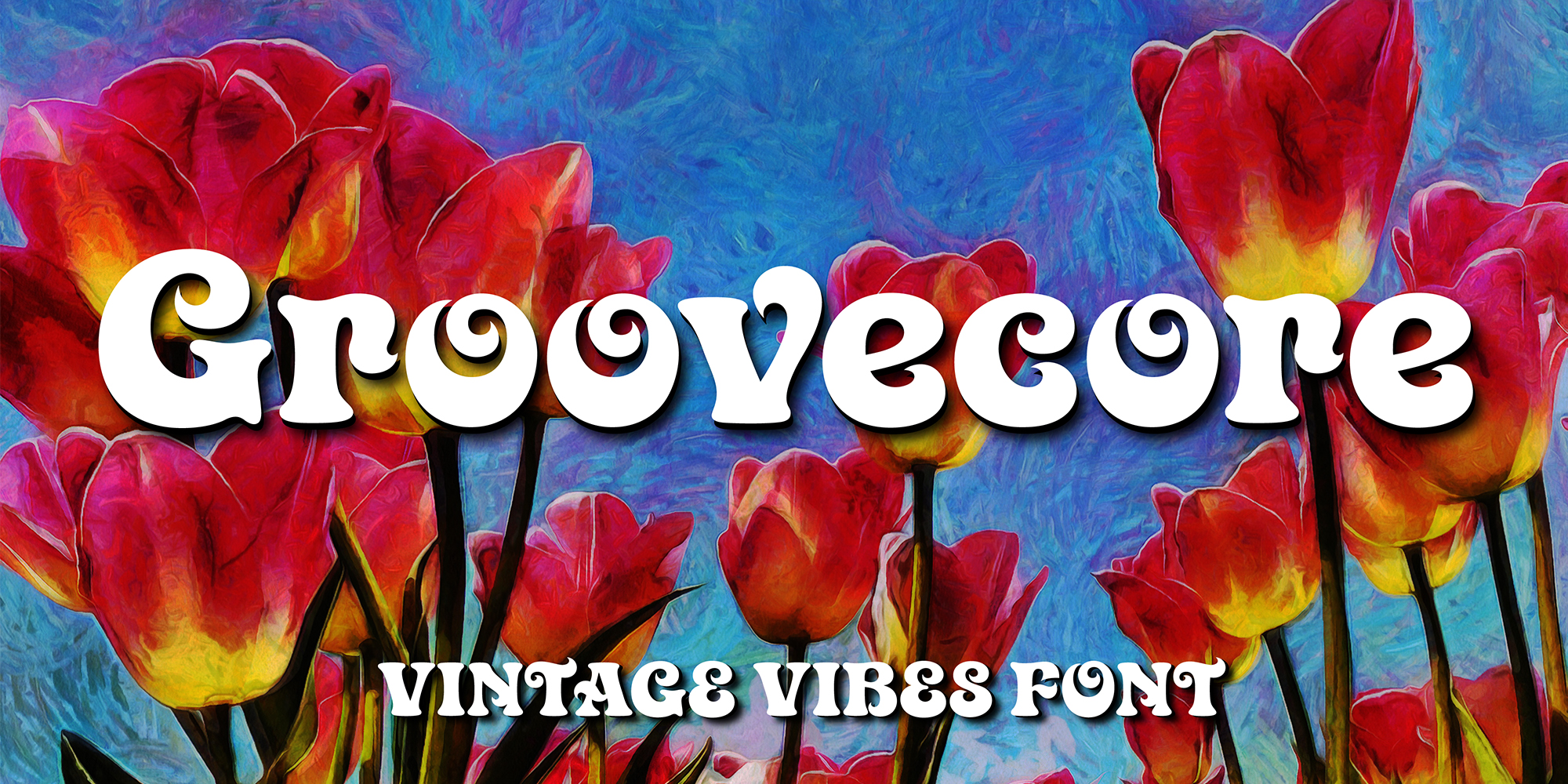
Bring rhythm and retro flair to your designs with Groovecore Font Free Download. This funky, bold typeface draws inspiration from the disco era and 70s design, making it perfect for music posters, party flyers, lifestyle branding, album covers, and retro-themed graphics. Groovecore Font Free Download delivers vibrant energy and a playful, stylish personality that instantly grabs attention.
With its chunky curves and groovy rhythm, Groovecore Font adds a fun and nostalgic vibe to any project. Whether you're creating bold headlines, creative packaging, or eye-catching social media posts, this font provides the perfect blend of vintage charm and modern usability. It’s a great choice for anyone looking to stand out with personality and flair.